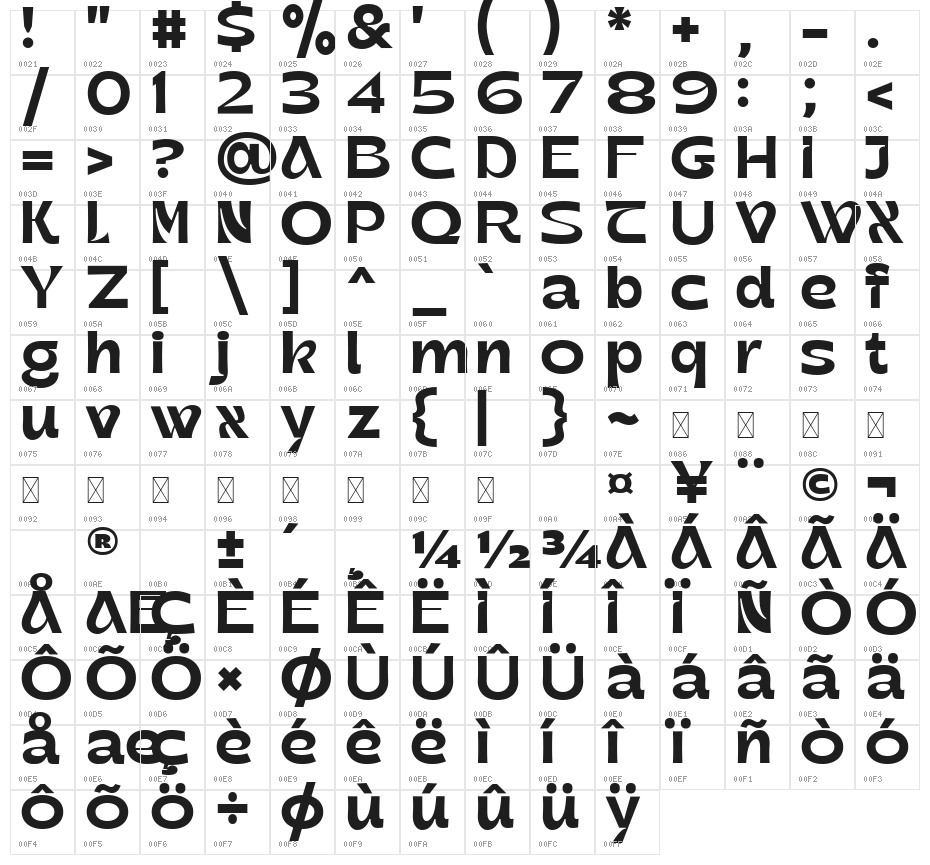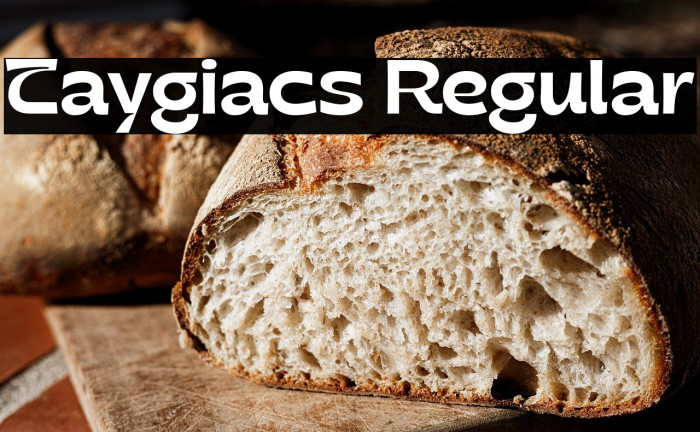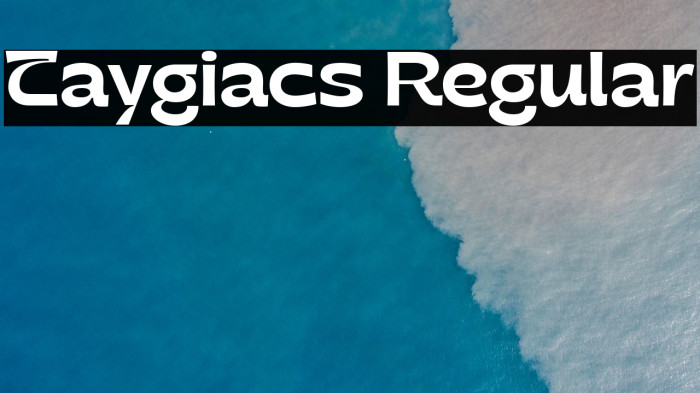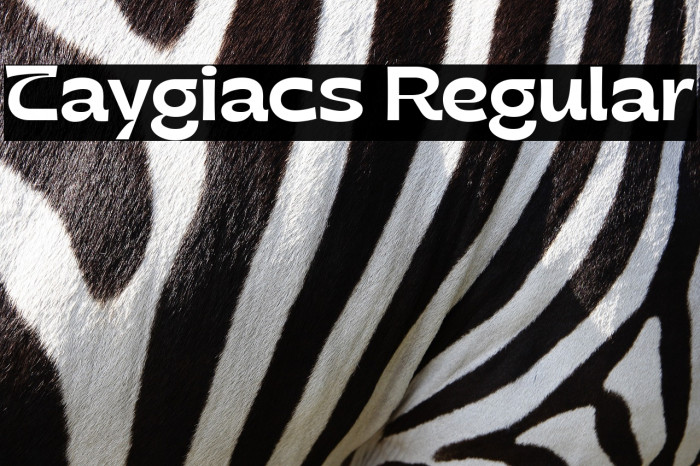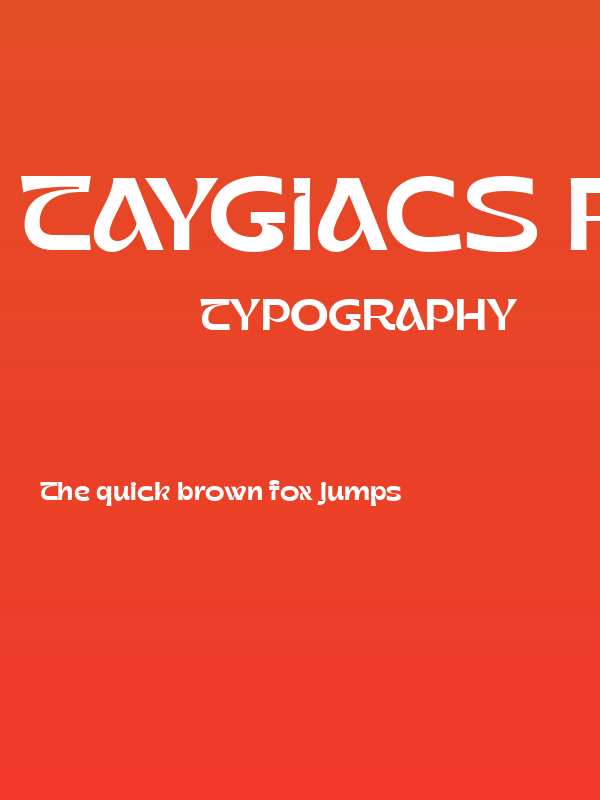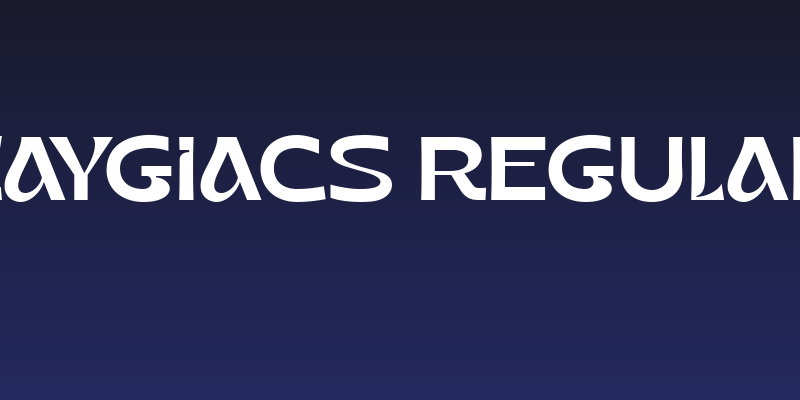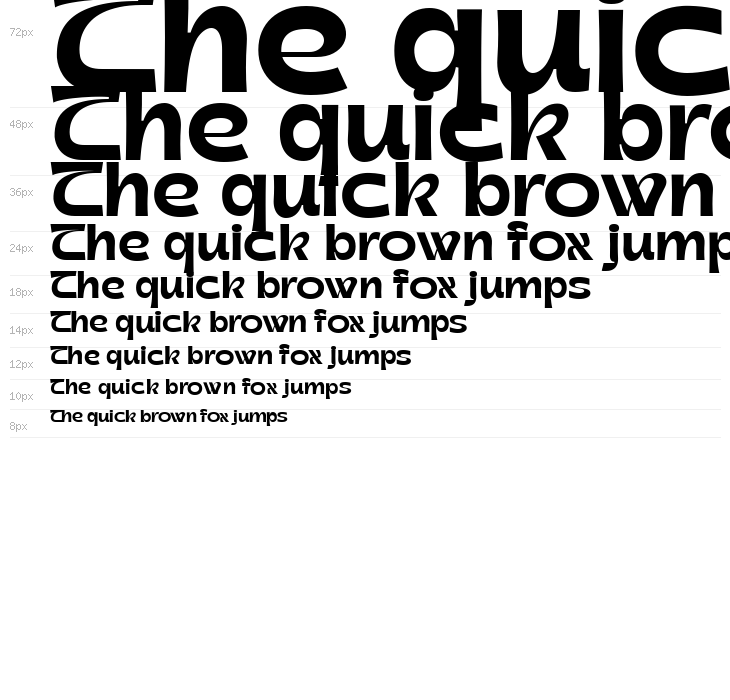
Taygiacs Regular Font
Taygiacs Regular Description
This font features a bold and dynamic style with a unique geometric flair. The uppercase letters exhibit sharp angles and distinct curves, creating a striking visual impact. The lowercase letters maintain a consistent style with rounded edges, offering a harmonious balance. Numbers are bold and clear, ensuring readability. Special characters are designed with the same geometric influence, adding to the font's cohesive appearance. This font's modern and artistic design makes it suitable for a variety of creative projects.
| Proposed Projects | Ideal for branding, posters, headlines, and any project requiring a modern and artistic touch. |